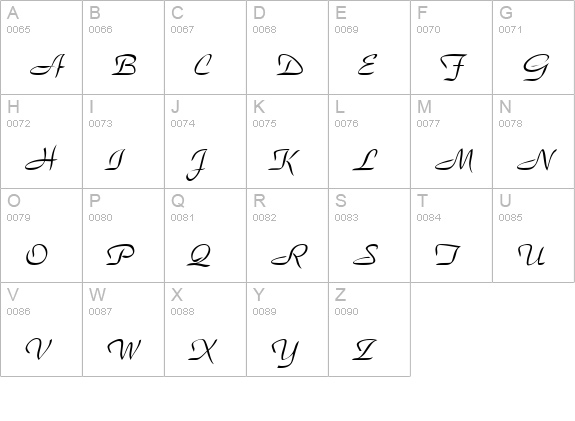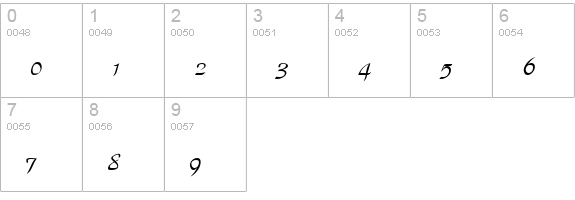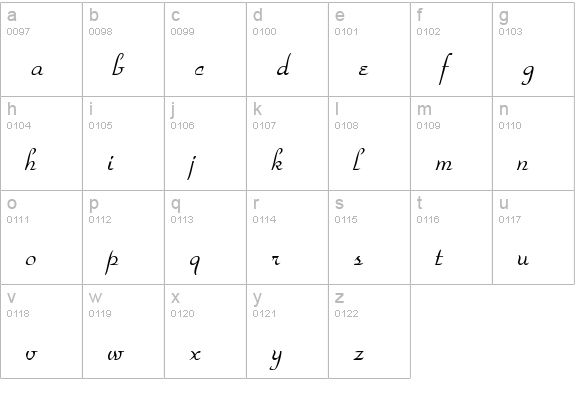
Paradise Font Details
Introducing Paradise, a captivating and versatile font that will transport your designs to a world of sheer elegance and sophistication. With its exquisite curves and delicate strokes, Paradise brings a touch of paradise to your creative projects. This font is a true work of art, carefully crafted to perfection. Its timeless appeal and effortless beauty make it the ideal choice for a wide range of design purposes. Whether you are creating stunning logos, eye-catching posters, elegant invitations, or captivating social media posts, Paradise will effortlessly elevate your visuals to new heights. One of the most remarkable aspects of Paradise is that it is completely free! Yes, you read that right. This exceptional font is freely available to download at FontsMarket.com. We believe in providing top-quality resources to empower and inspire designers of all levels, and Paradise is no exception. Downloading Paradise is a breeze, and you will be amazed at the endless possibilities it opens up for your creative endeavors. The ease of access, combined with the font's striking beauty and versatility, makes it a must-have in every designer's toolkit. The characters in Paradise are meticulously designed, ensuring a seamless and flawless appearance in every project. The font features a wide range of weights and variations, allowing you to experiment and find the perfect fit for your specific design needs. Whether you want to create an elegant wedding invitation, a sophisticated magazine layout, or a captivating branding project, Paradise has got you covered. Its graceful curves, intricate details, and harmonious balance will lend a touch of perfection to any design. So, don't miss out on this incredible opportunity to enhance your design work with the mesmerizing Paradise font. Head over to FontsMarket.com and download it for free today. Let Paradise guide you to a world of creative possibilities, where beauty and elegance reign supreme.